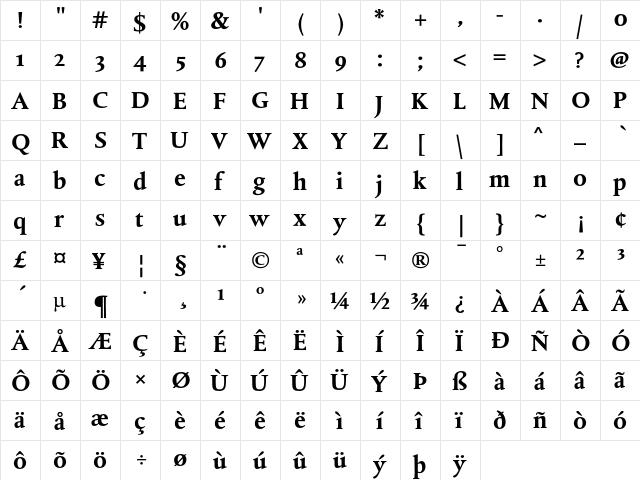
DTLAlbertinaST Bold
Design Context for DTLAlbertinaST Typeface
DTLAlbertinaST takes a measured approach to typography — its balanced proportions and neutral character make it a reliable workhorse for both digital and print work. The heavy weight commands attention and anchors typographic hierarchies.
Pro Tip: Use DTLAlbertinaST in both headline and body roles to test its range before committing to a single application.